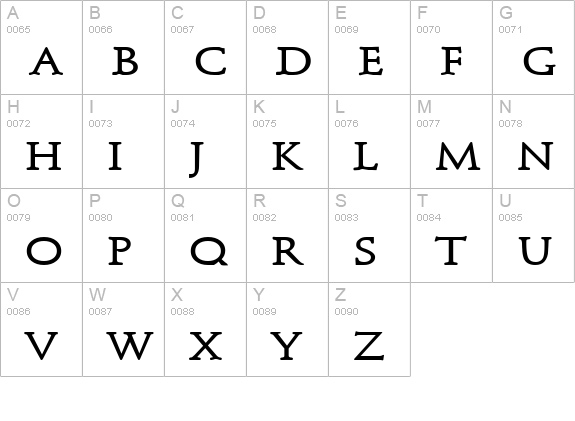
Schroeder Wide Bold is a strong, high-contrast, extended-width variant in the Schroeder typeface family \xE2\x80\x94 well suited to headlines, attention-grabbing titles, and strong calls-to-action.
Introducing Schroeder Wide Bold, a captivating and versatile font that exudes confidence and modernity. This font effortlessly combines bold, wide letterforms with a touch of elegance, making it the perfect choice for attention-grabbing headlines, eye-catching logos, and striking designs. With its strong presence and commanding appearance, Schroeder Wide Bold captures the essence of boldness and adds a unique flair to any creative project. Whether you're designing a poster, creating a brand identity, or crafting a captivating website, this font will make a bold statement that leaves a lasting impression on your audience. What sets Schroeder Wide Bold apart is not only its impeccable design but also its accessibility. It is freely available to download at FontsMarket.com, allowing designers, typographers, and creatives alike to effortlessly access this remarkable font without any hassle. This free offering ensures that Schroeder Wide Bold can be enjoyed by everyone, regardless of budget or restrictions. The careful balance of wide proportions and bold weight gives Schroeder Wide Bold a sense of strength and stability, while the gentle curves and refined detailing add an element of sophistication. The result is a font that stands out from the crowd, effortlessly commanding attention and conveying a sense of professionalism and creativity. Whether used in print or digital media, Schroeder Wide Bold shines with its versatility and adaptability. It effortlessly adapts to various design styles and seamlessly integrates into a wide range of creative projects. From editorial layouts to product packaging, this font is the perfect tool to elevate your design and captivate your audience. In today's fast-paced world, where first impressions matter, Schroeder Wide Bold ensures that your message is delivered with impact and clarity. Its bold and wide letterforms demand attention while maintaining legibility, ensuring that your words are both seen and understood. Don't miss out on the opportunity to add Schroeder Wide Bold to your font collection. Visit FontsMarket.com today and freely download this remarkable font that is guaranteed to elevate your designs and make a lasting impression.